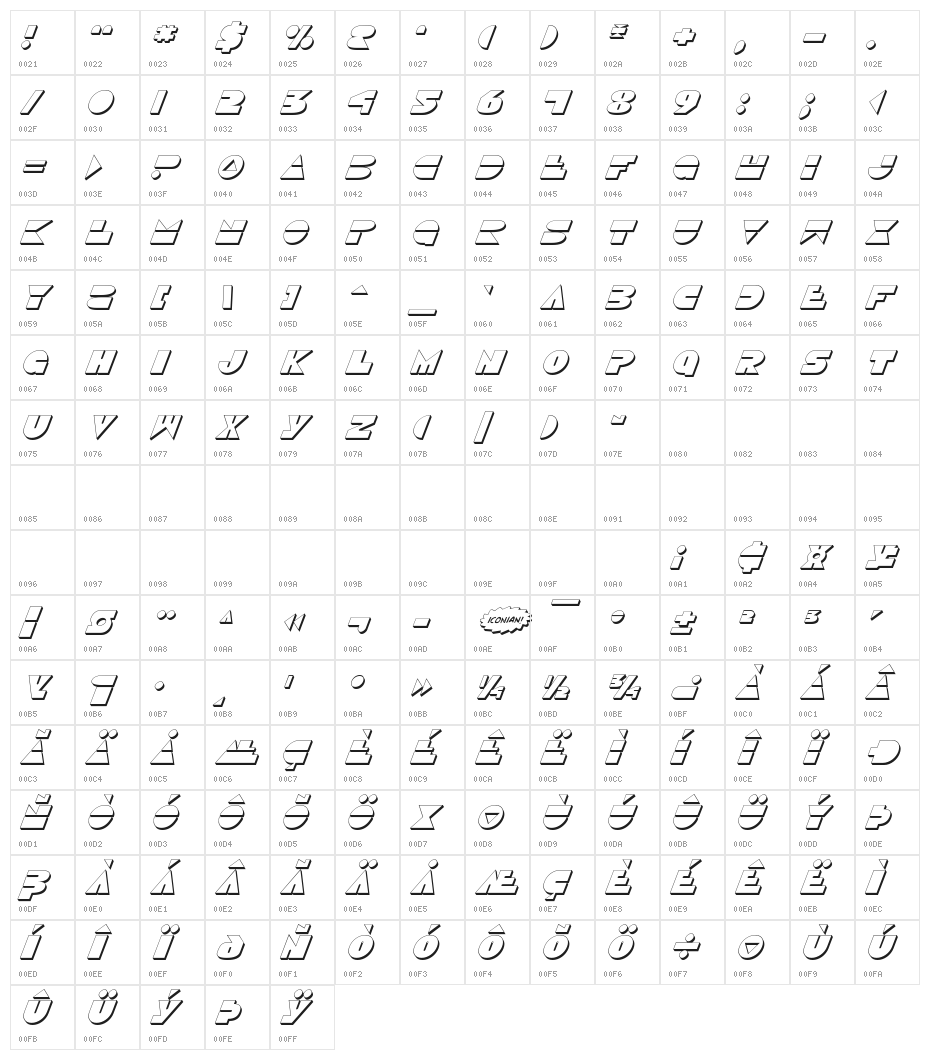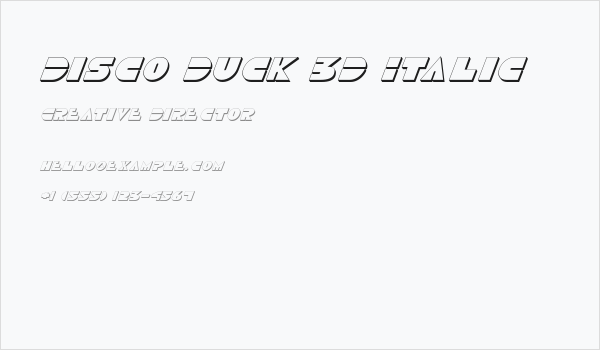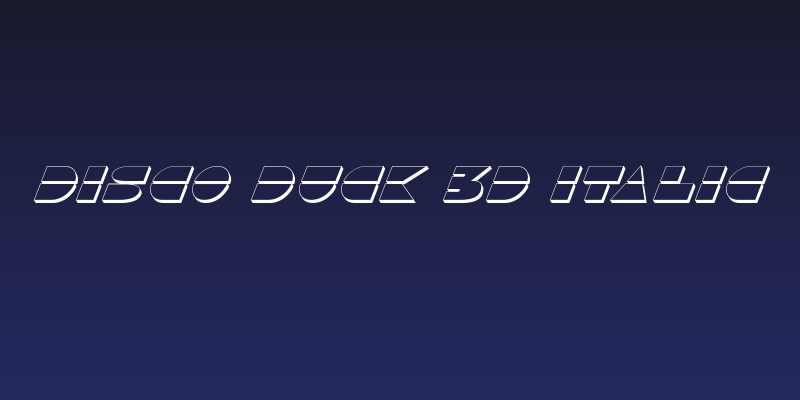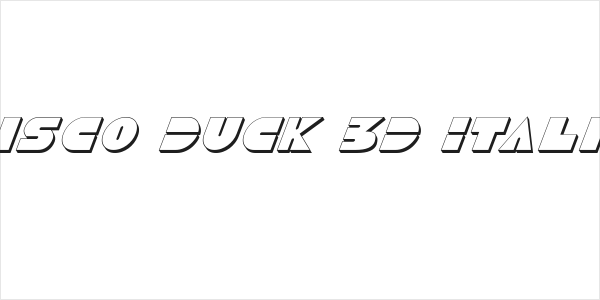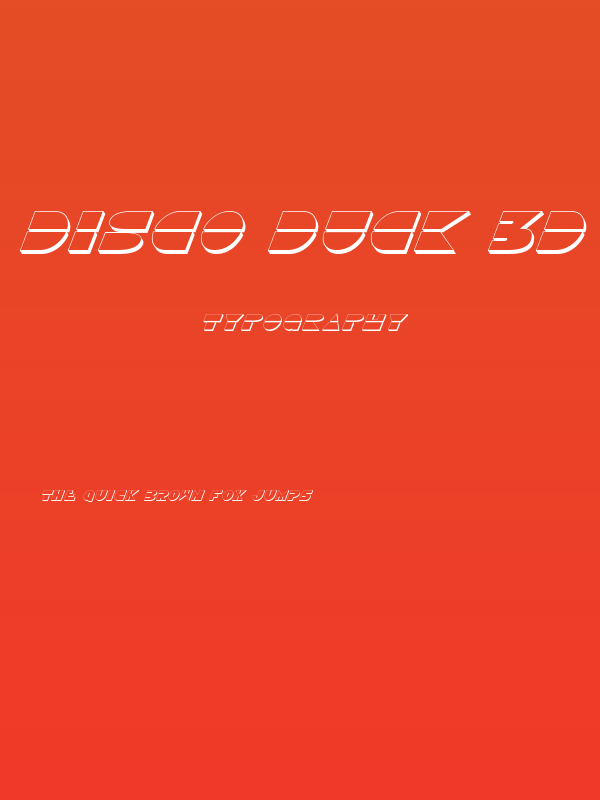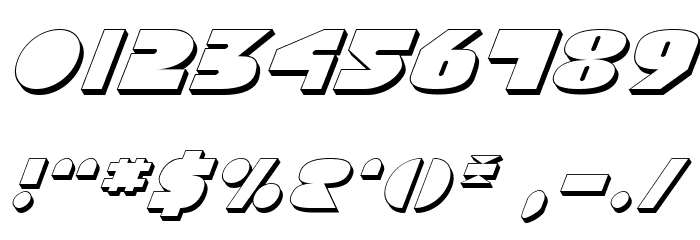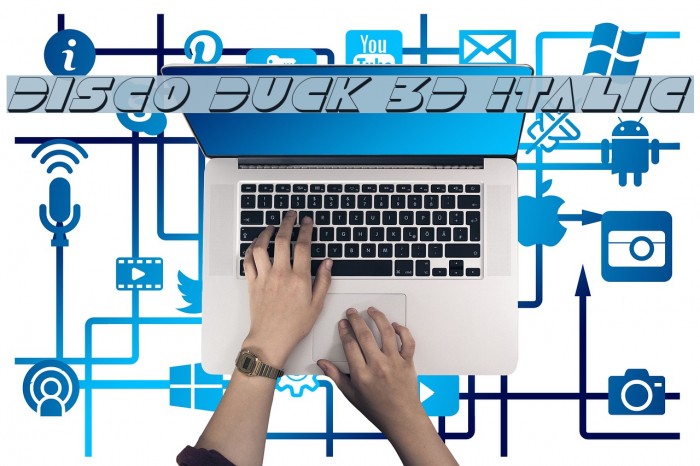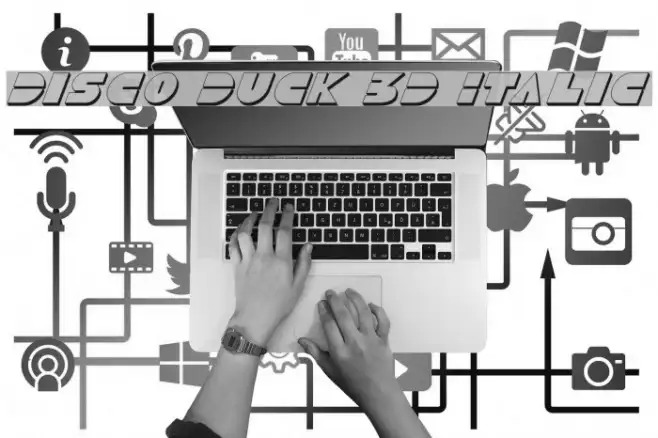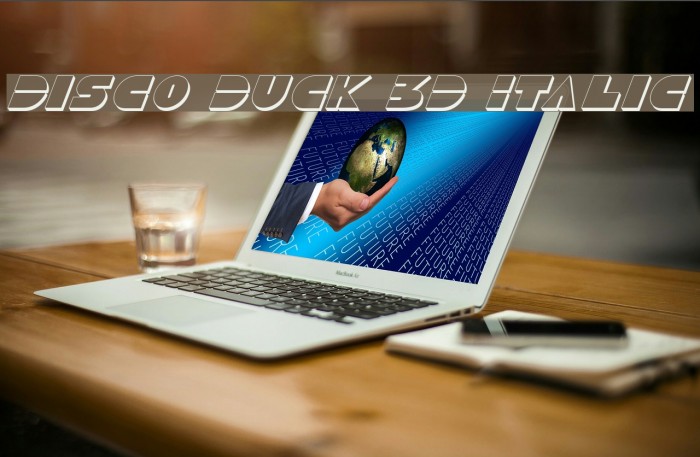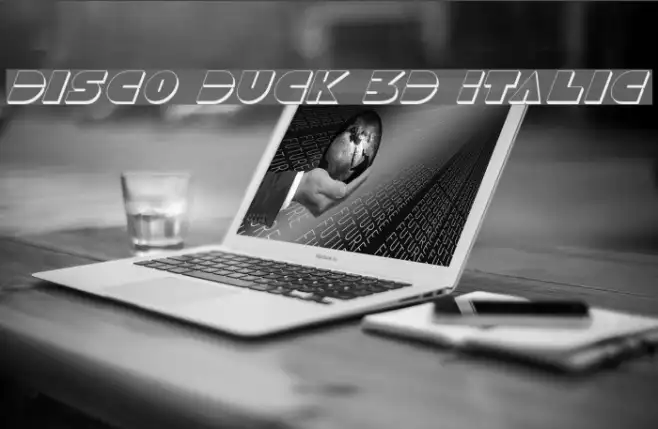
Disco Duck 3D Italic Font
Disco Duck 3D Italic Description
This font features a bold, three-dimensional style with an italic slant, creating a dynamic and eye-catching appearance. The characters are designed with a geometric, block-like structure, giving them a futuristic and playful vibe. The 3D effect is achieved through shadowing and layering, adding depth and a sense of movement. The uppercase and lowercase letters maintain a consistent style, with angular edges and a uniform thickness throughout. The numerals and special characters follow the same design principles, ensuring a cohesive look across all elements. This font is ideal for projects that require a bold and energetic aesthetic.
| Proposed Projects | Ideal for posters, logos, video game graphics, and any project needing a bold, futuristic look. |